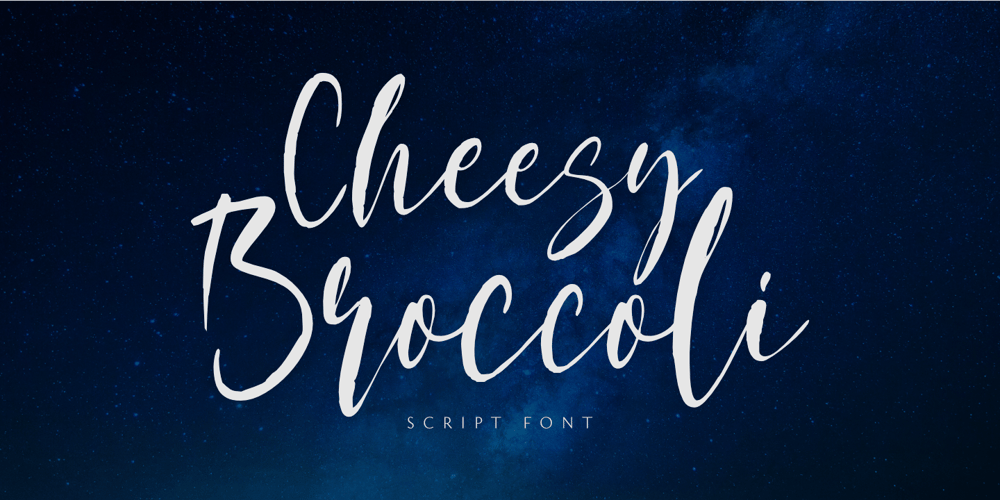
Cheesy Broccoli
Cheesy Broccoli font
Cheesy Broccoli Font Family was designed by Nurul Hidayani and published by Olivetype. Cheesy Broccoli contains 1 styles and family package options. Cheesy Broccoli is a care free signature script font. This versatile script font has a wide spectrum of applications ranging from logotype, product branding to headlines. Add a masculine feel to your next project with this modern calligraphy-styled font.So what’s included : Basic Latin A-Z & a-z Numbers, symbols, and punctuations Ligatures Accented Characters : ÀÁÂÃÄÅÆÇÈÉÊËÌÍÎÏÑÒÓÔÕÖØŒŠÙÚÛÜŸÝŽàáâãäåæçèéêëìíîïñòóôõöøœšùúûüýÿžß Thank you